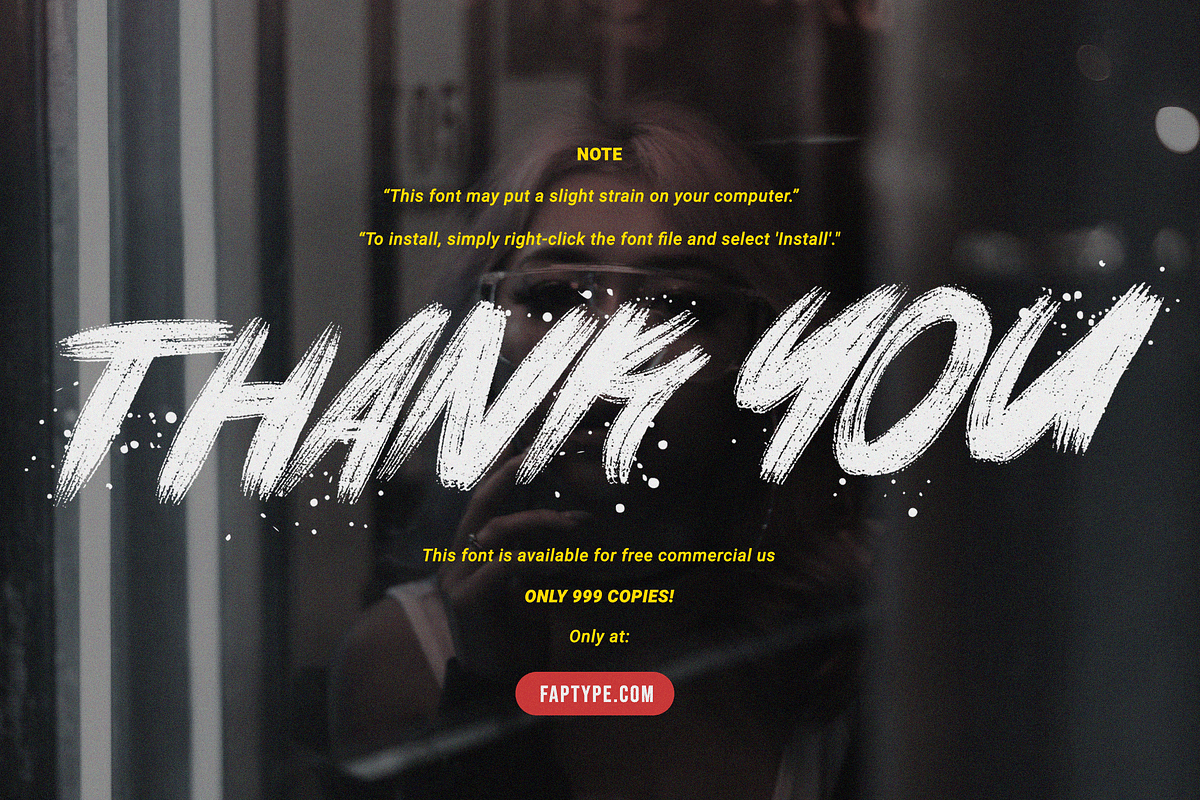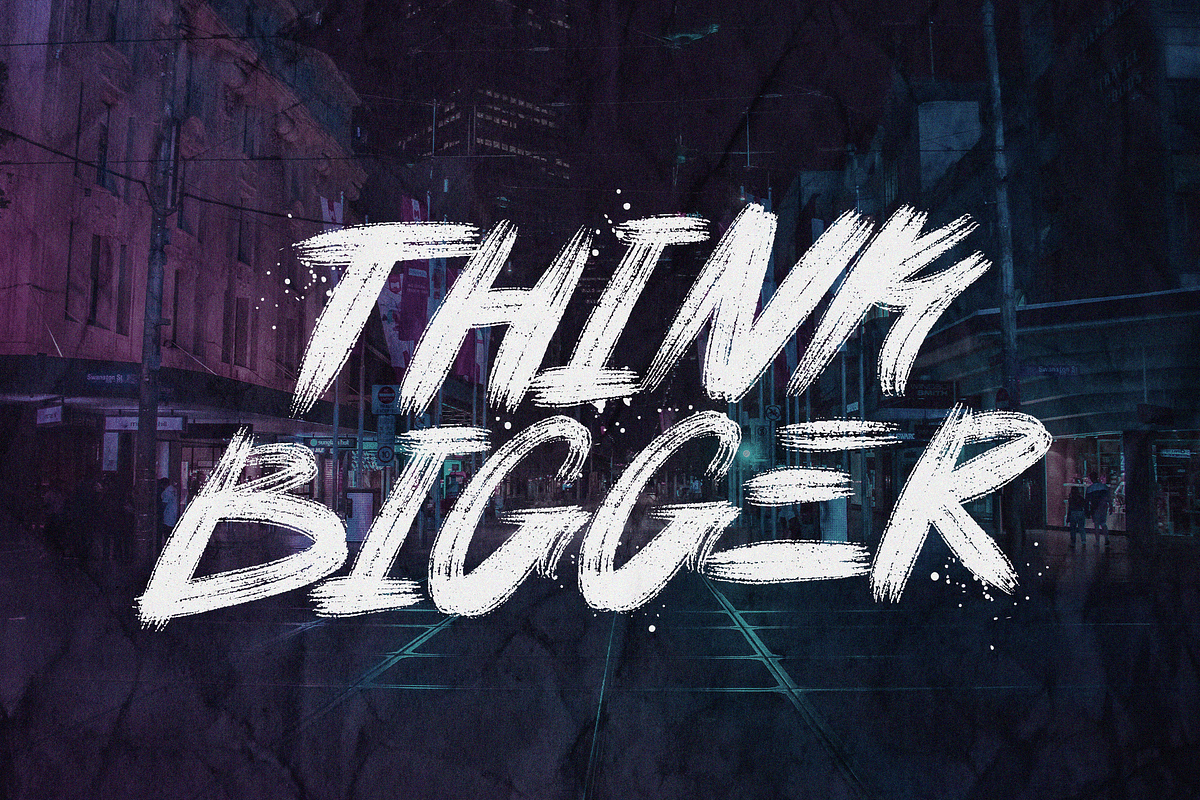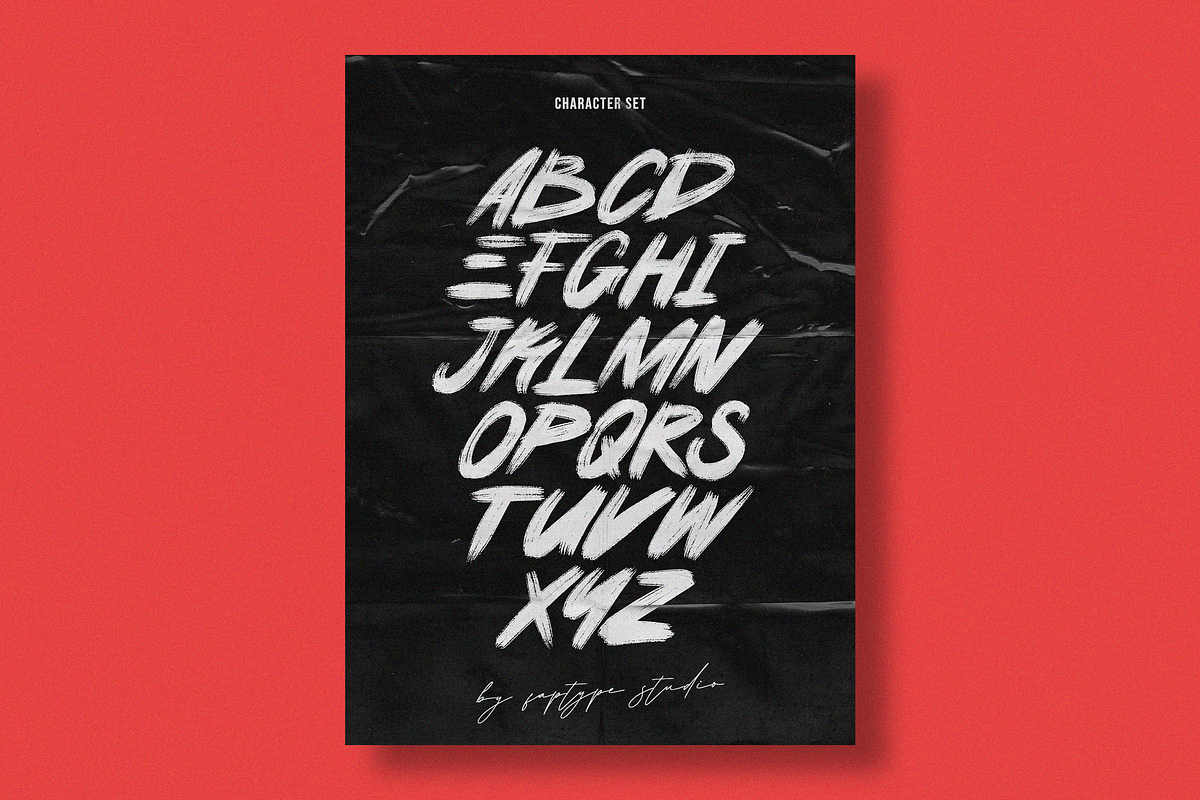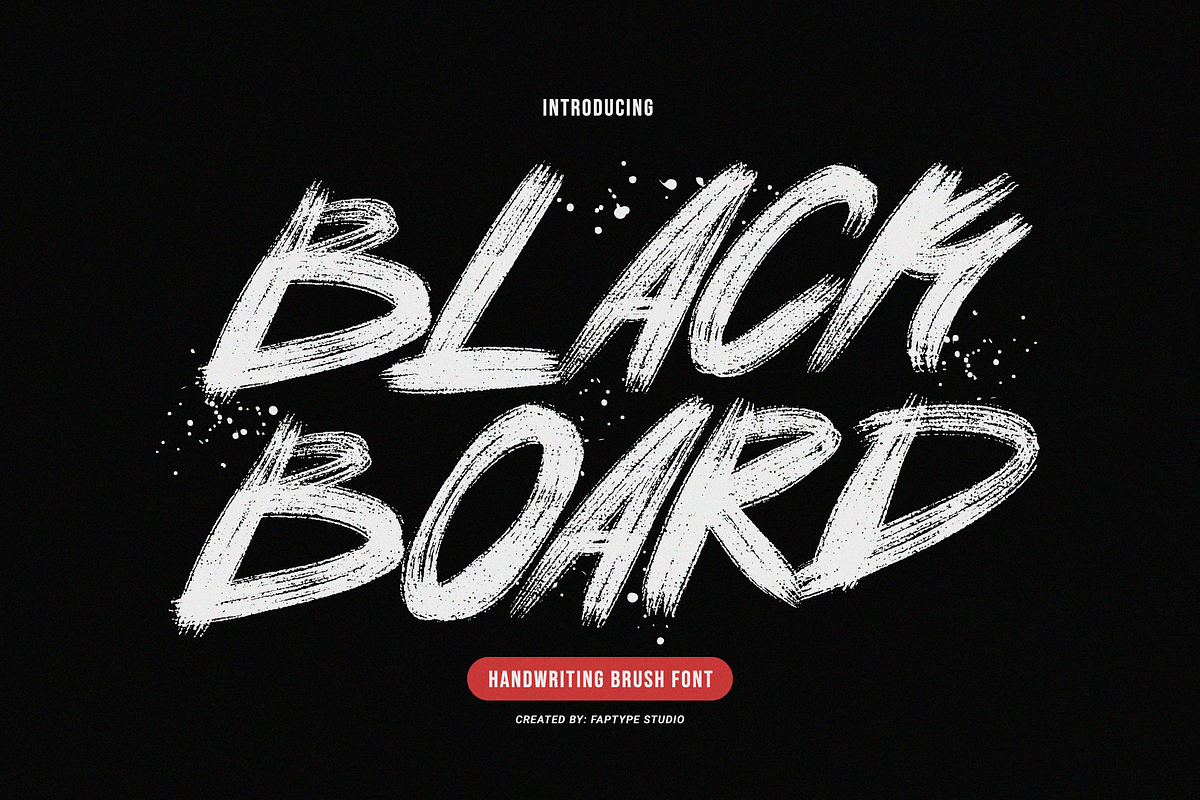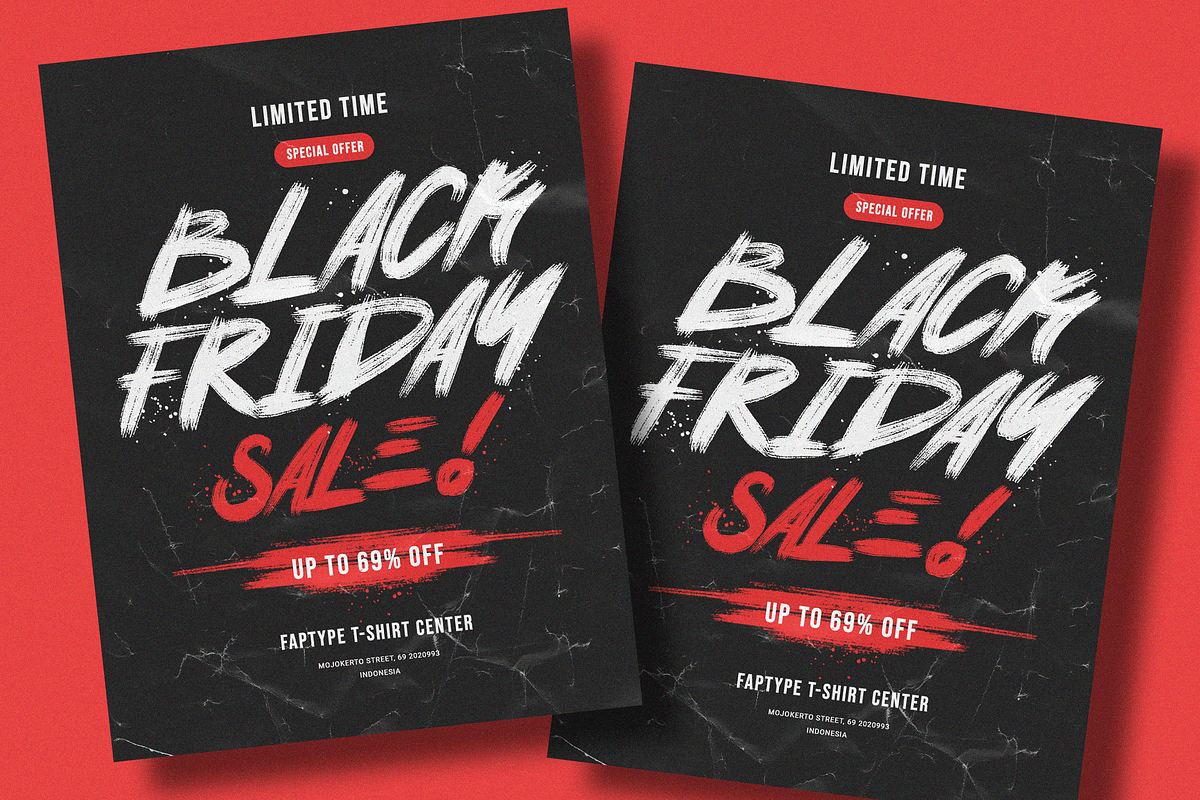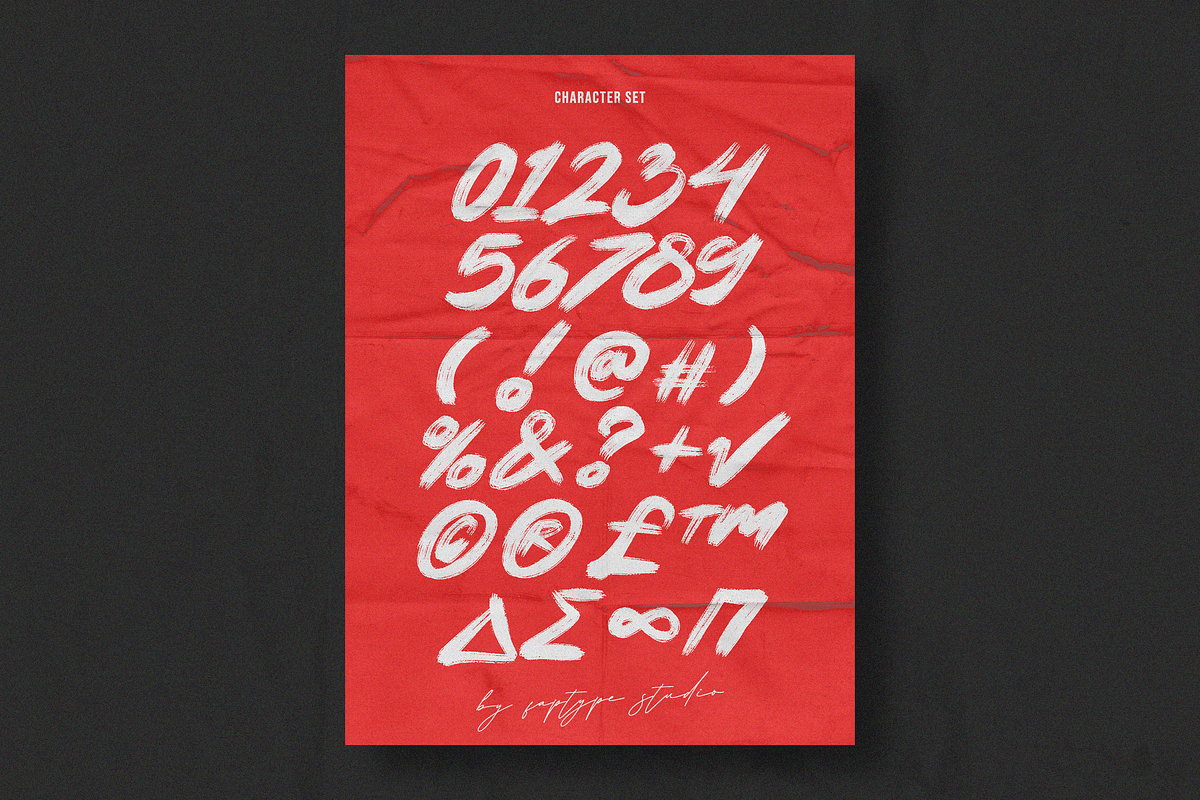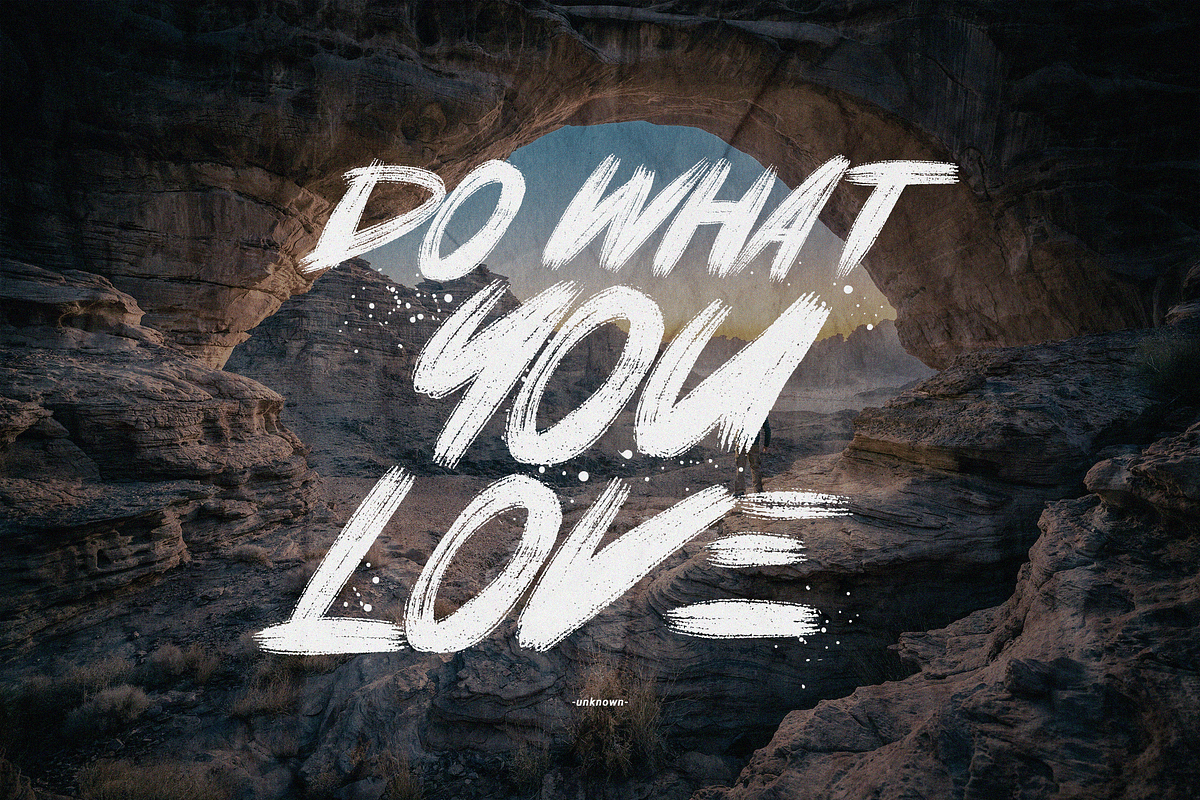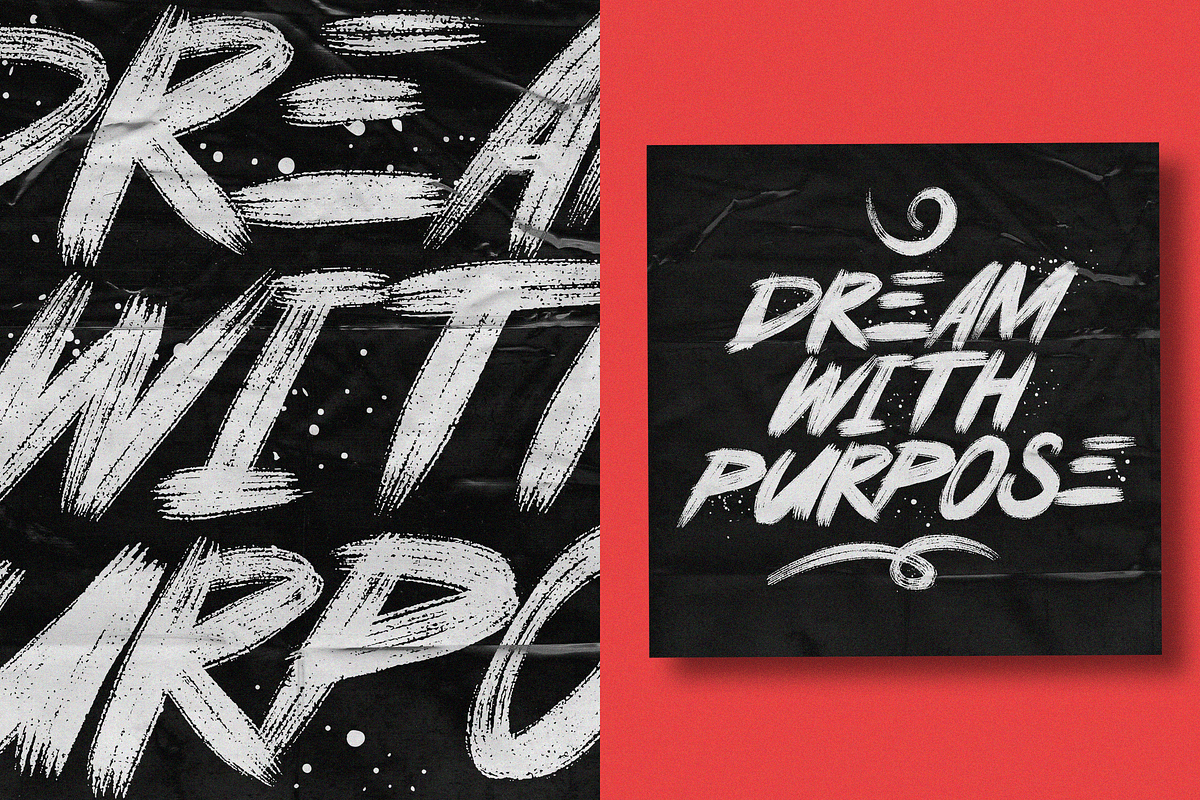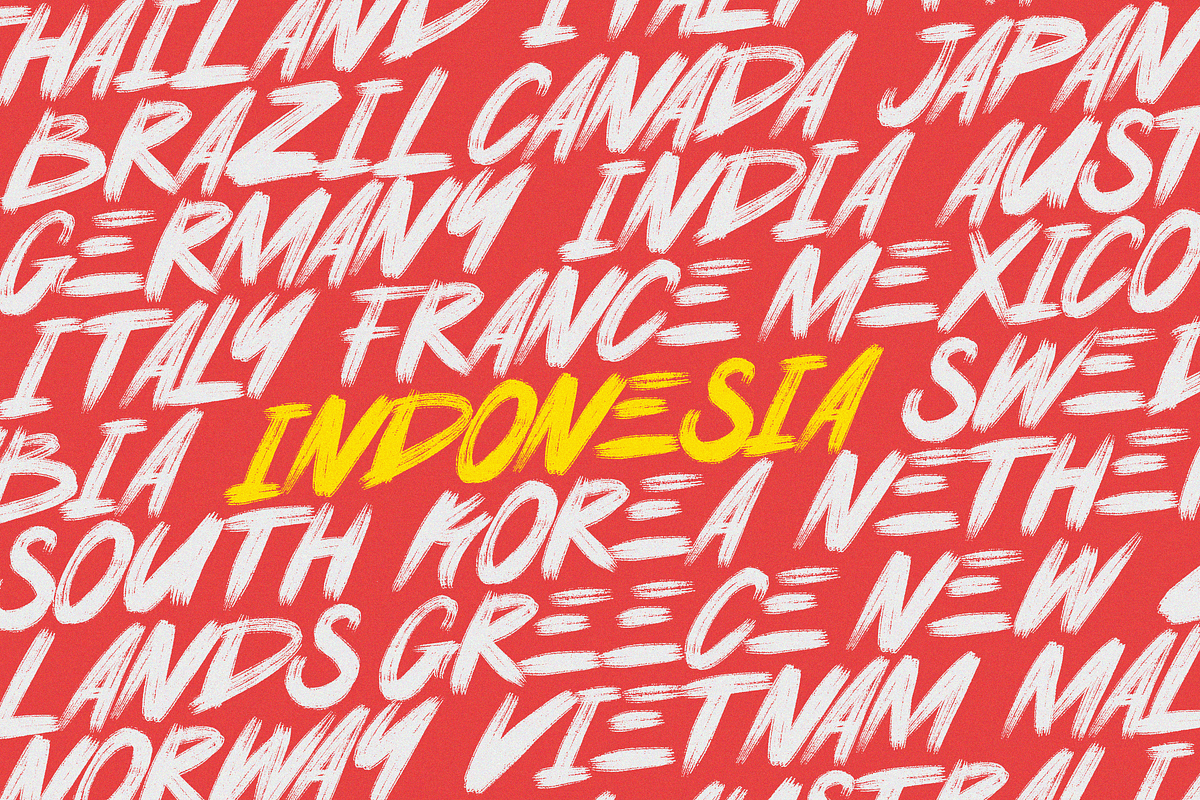
Blackboard | Handwriting Brush Font
Introducing Blackboard, a bold and dynamic heavy brush handwriting font designed to make a powerful statement. With its striking strokes and authentic hand-drawn texture, Blackboard captures the raw energy of traditional brush lettering, offering a versatile choice for your most creative projects.
Perfect for headlines, branding, packaging, and social media graphics, Blackboard exudes personality and adds an expressive touch to any design. Whether you're looking to create a commanding logo or eye-catching promotional material, this font's unique style ensures your message will stand out with confidence and clarity.
Experience the perfect blend of boldness and artistry with Blackboard—where every stroke speaks louder.
Blackboard features:
- A full set of uppercase characters
- Multilingual language support
- 277 Glyphs
- OpenType Features